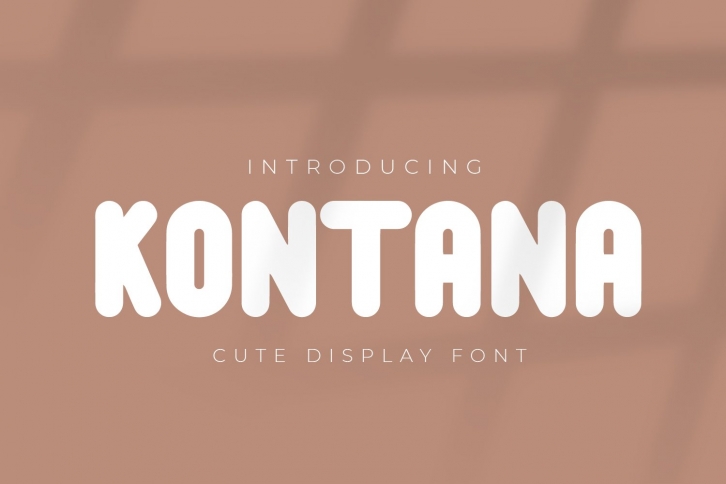
Kontana is a beautiful font that was designed by titik creative. It's a great choice for designers and creatives who need such a font. It was released on December 4, 2020 and the file size is 15.64 MB. Kontana may give a more youthful, expressive and casual look to your project. It is a very beautiful, refined, elegant, and high-quality font.